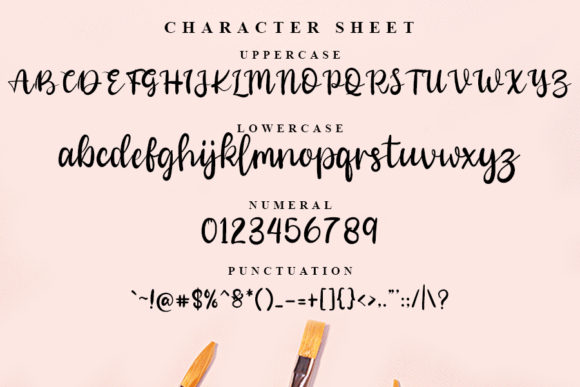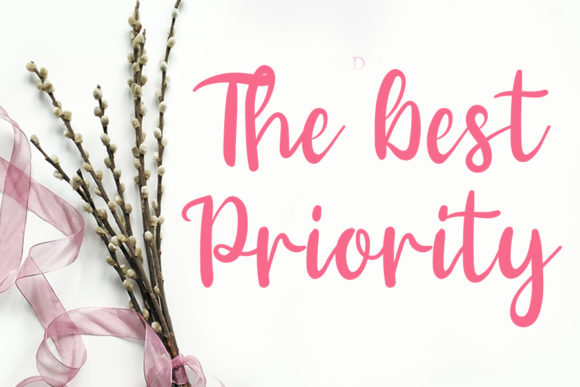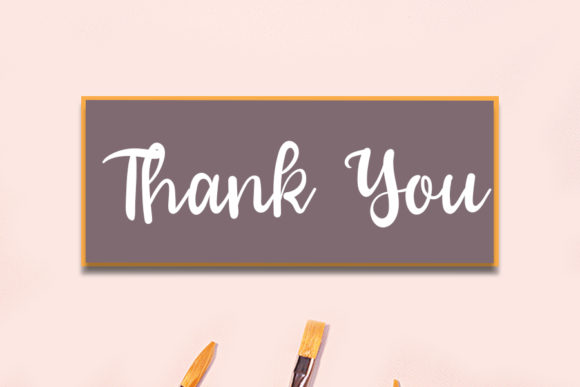
The Perfect Match for Your Next Creative Project
Have you ever stared at a blank canvas, longing for the perfect font to bring your design to life? We’ve all been there – the moment when every other font seems to fall short, and you’re left searching for that elusive combination of style and substance. That’s where Beautiful Font comes in – a modern script font designed to capture the essence of romance and elegance, and bring your creative vision to the forefront.
Beautiful Font is more than just a pretty face – it’s a valuable tool for designers looking to elevate their work and stand out from the crowd. With its flowing lines and delicate curves, this font has the power to add a touch of sophistication to any project, from wedding invitations to branding materials.
Key Features of Beautiful Font
- Unique Characteristics: Beautiful Font features a unique blend of elegance and sophistication, with subtle flourishes and ornate details that set it apart from more traditional fonts.
Beautiful Font Review
Overall, I’m really impressed with the Beautiful Font. Here’s what I love about it:
- ✨ The font is highly customizable, allowing me to adjust the size, color, and spacing to fit any design.
- ✨ The typography is elegant and sophisticated, making it perfect for formal documents and presentations.
- ✨ The font is highly legible, even at small sizes, which is a must for any design.
However, I do have some concerns:
- ⚠️ The font can be quite heavy on system resources, which may cause performance issues on lower-end computers.
- ⚠️ The font is not optimized for certain screen resolutions, which can result in pixelation and distortion.
Despite these limitations, I would highly recommend the Beautiful Font for any design project. It’s a versatile and elegant font that can add a touch of sophistication to any document or presentation. With a little tweaking, it can be made to work beautifully on most systems.
Tips for Getting the Most Out of Beautiful Font
Use Beautiful Font to add a touch of elegance to your designs. Try pairing it with bold fonts for contrast, or use it in all caps for a dramatic effect.
Use Beautiful Font for:
- Branding and logo design
- Event promotions and flyers
Alternatives to Beautiful Font